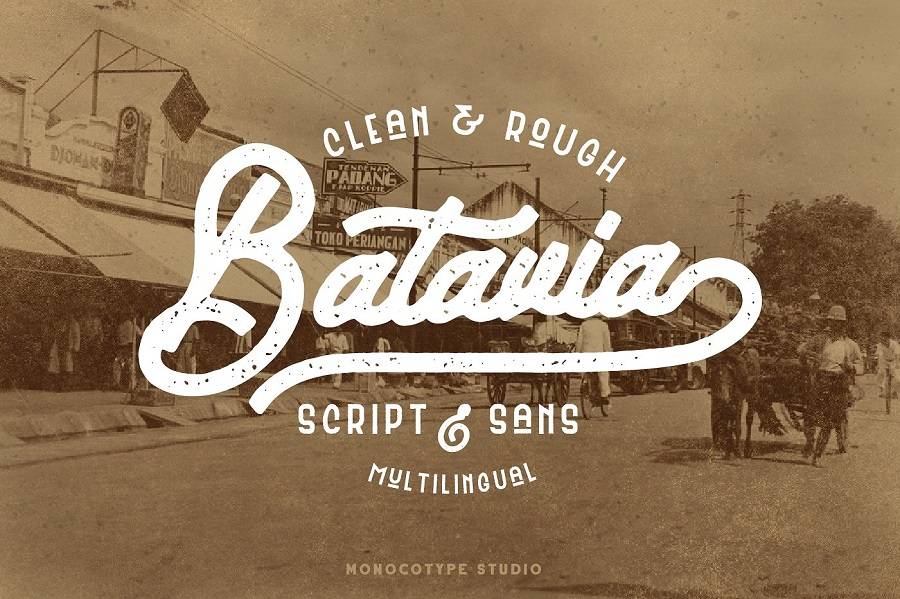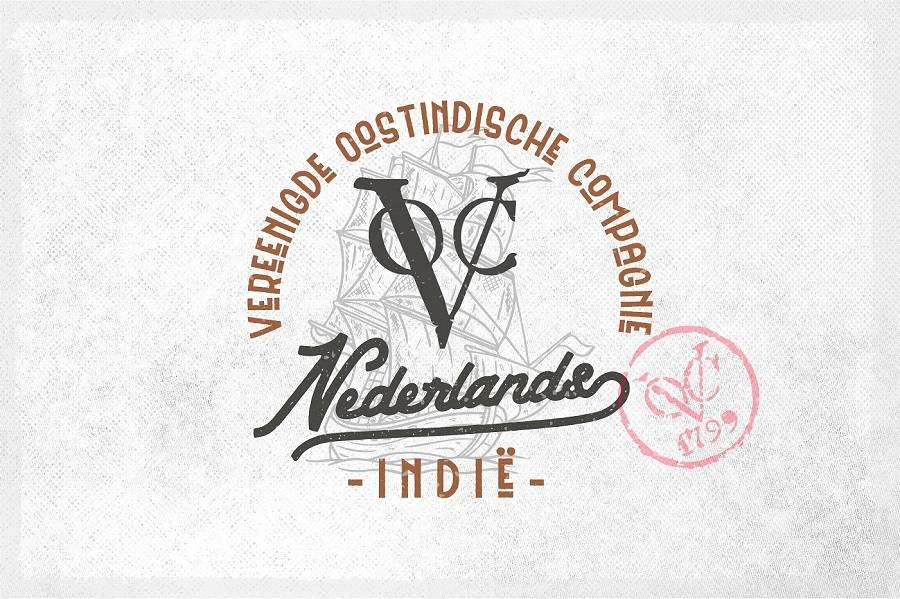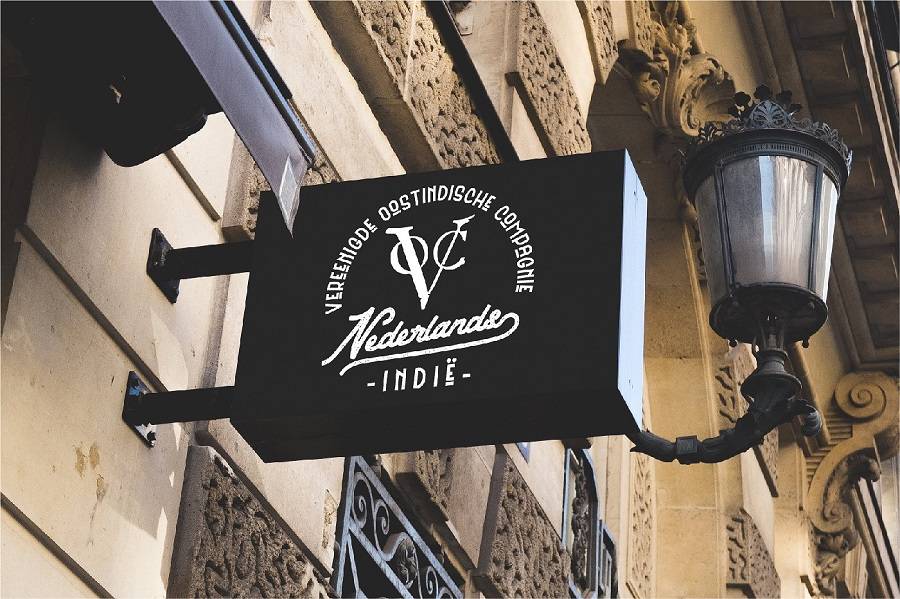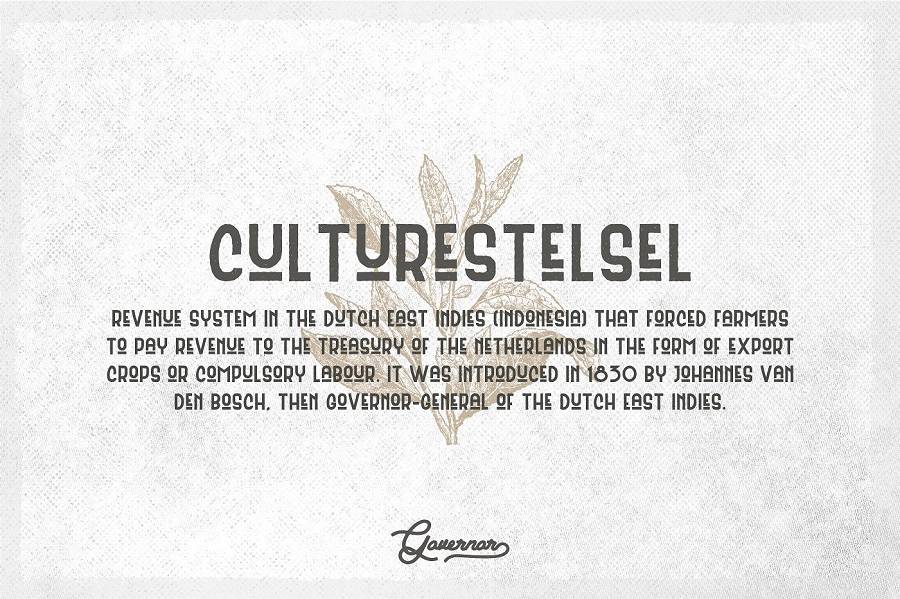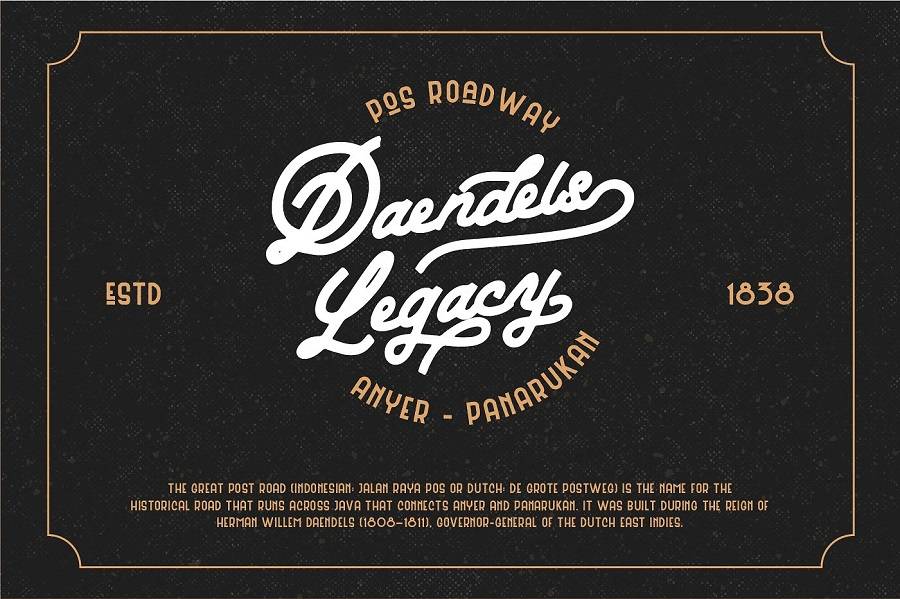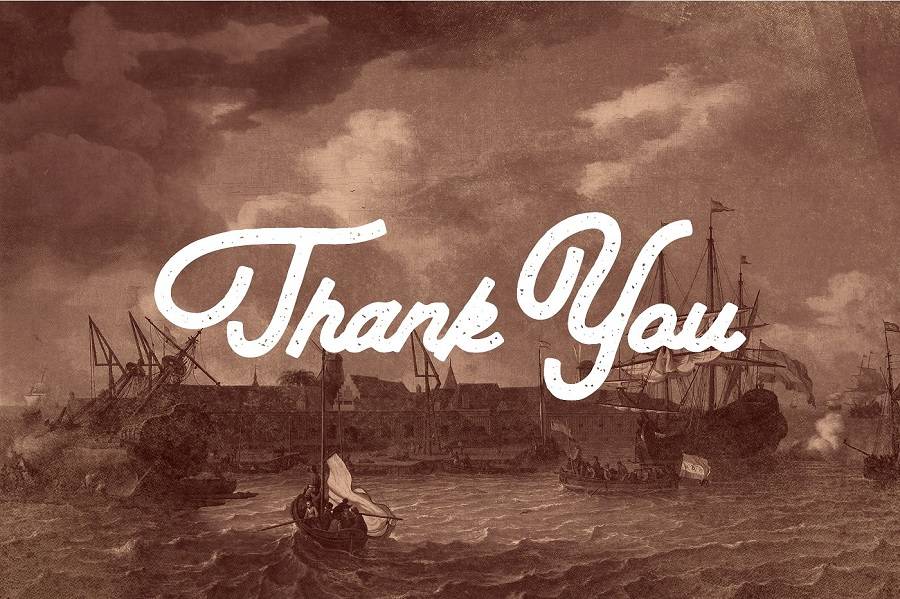
Batavia Font Duo is a distinctive sans serif with a handcrafted feel, featuring bold, slightly irregular strokes and unique underlined letterforms that add character and visual interest. Its condensed width and tall x-height make it effective for eye-catching headlines or creative branding that seeks a playful yet strong personality. This font works well in packaging, posters, and logos where a memorable, artisanal touch is desired.
Batavia Font Duo